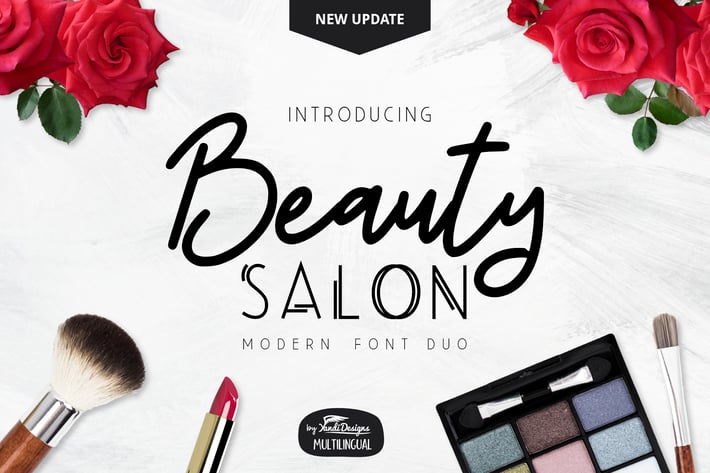
Beauty Salon Modern Fonts
Beauty Salon Font Duo
Modern and elegant multipurpose font , suitable for many project children book, quotes, logo , heading , title etc.